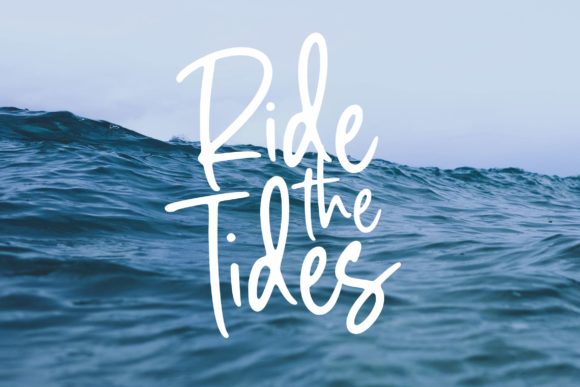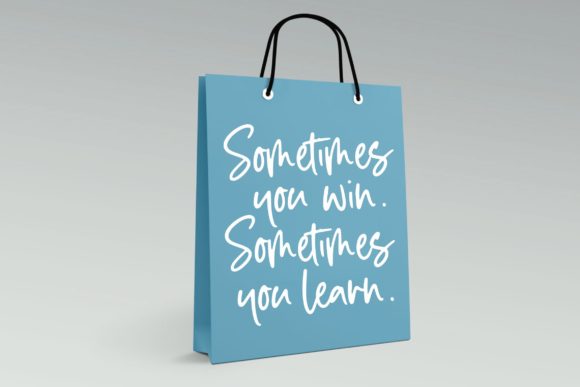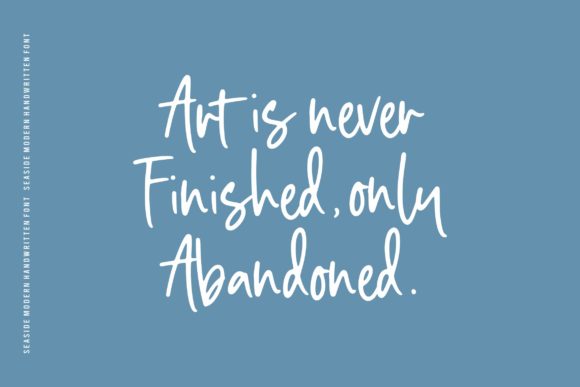
Introduction to Seaside Font
As a designer, there’s nothing quite like the feeling of hitting the ‘save’ button on a project that’s been months in the making. You’ve poured your heart and soul into it, and finally, it’s ready to see the light of day. But sometimes, it’s the little details that can make all the difference – like the perfect font.
That’s where the Seaside Font comes in – a simple, modern, and relaxed handwritten font that’s perfect for adding a touch of personality to your creative project. Whether you’re working on a product packaging design, a branding project, or even just a social media post, the Seaside Font is a valuable resource that’s sure to elevate your design.
Key Features of Seaside Font
- High-quality design: This font features a unique blend of modern and elegant styles, making it ideal for a variety of creative projects.
- Perfect for creative projects: Seaside Font is designed to inspire creativity, making it an excellent choice for graphic designers, artists, and writers.
Honest Review: Seaside Font
I recently had the chance to work with Seaside Font, a beautiful and versatile design resource that’s perfect for any creative project. With a free download available, I was excited to see how it would perform in my design.
The font’s transparent background makes it incredibly easy to layer and manipulate in design software, which is a major plus in my book. ✨ The high quality of the font is also evident, with crisp and clean lines that make it a joy to work with.
- Works well for creative projects like branding, advertising, and packaging
- Perfect for use on websites, social media, and other digital platforms
- Can be easily customized to fit your specific design needs
While I was really impressed with Seaside Font, there are a few limitations to be aware of. ⚠️ The font only includes a limited number of characters, which may not be suitable for complex or long-form text. Additionally, the font’s transparency can sometimes make it difficult to read in certain design contexts.
Overall, I was really impressed with Seaside Font and would highly recommend it to designers looking for a high-quality, versatile font. With its free download and transparent background, it’s a great addition to any design resource library.
Tips for Getting the Most Out of Seaside Font
Use the Seaside Font in combination with other design elements to create a unique and eye-catching design. Experiment with different font sizes and styles to find the perfect balance for your creative project. The Seaside Font is a great design resource for any project that requires a high-quality, transparent background.
The Seaside Font is a versatile design resource that can be used in a variety of creative projects, including logos, graphics, and presentations. Its high quality and transparent background make it a great addition to any design.